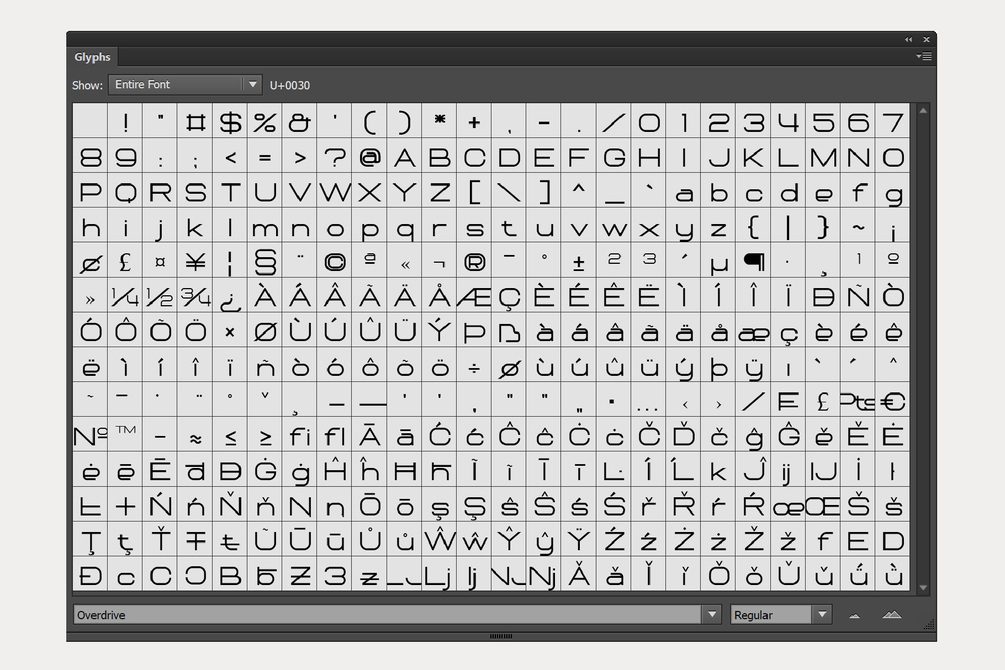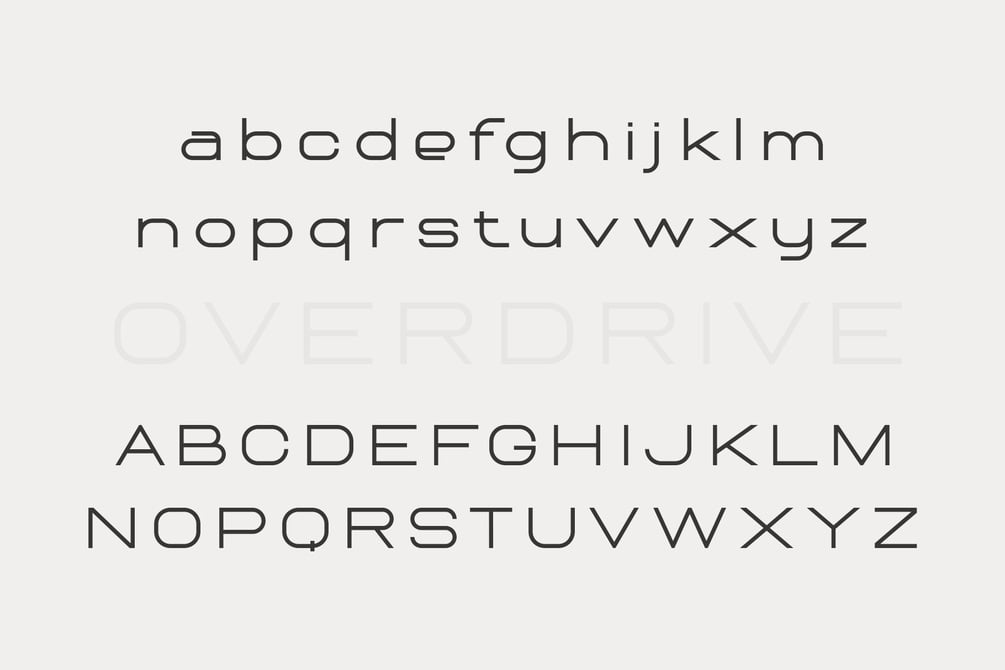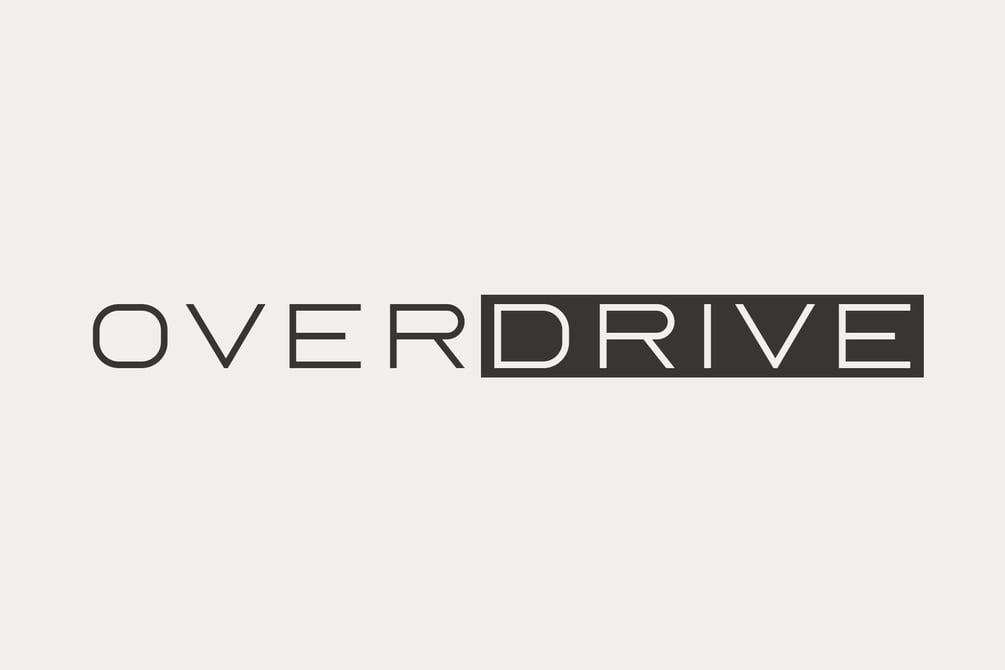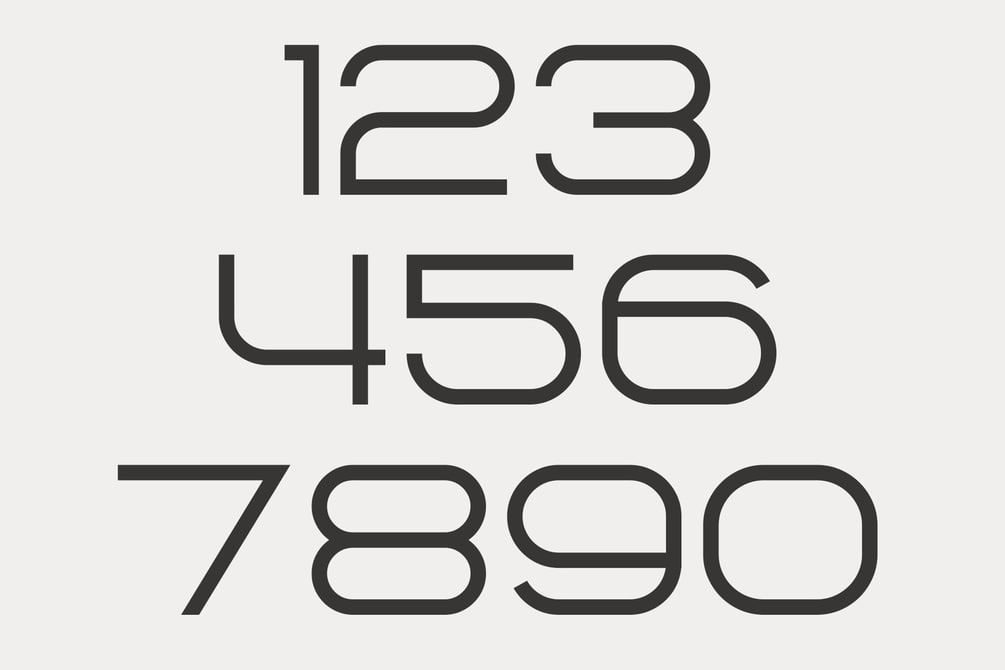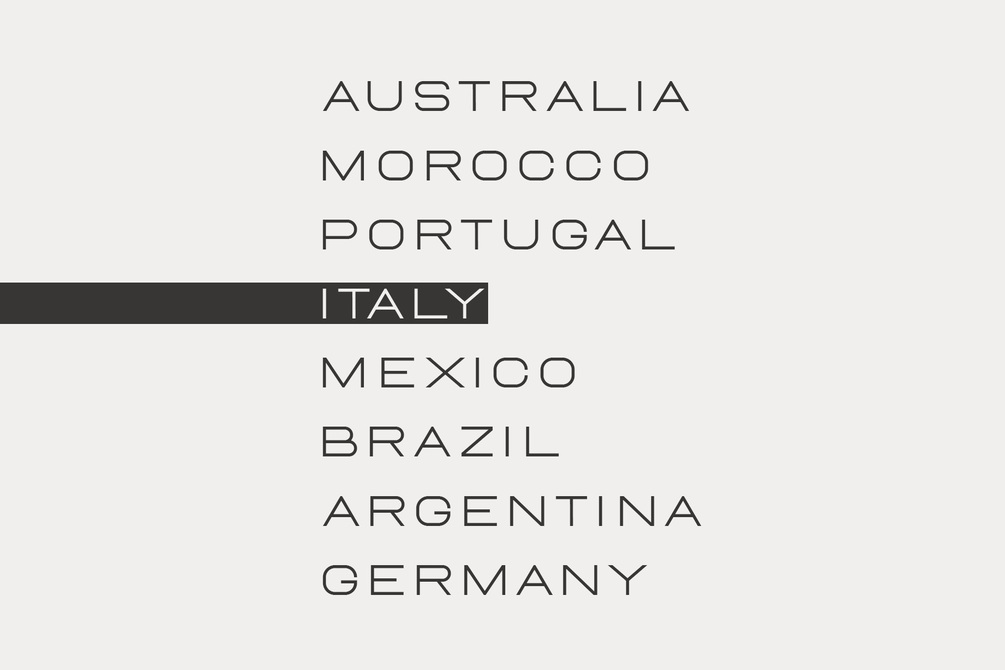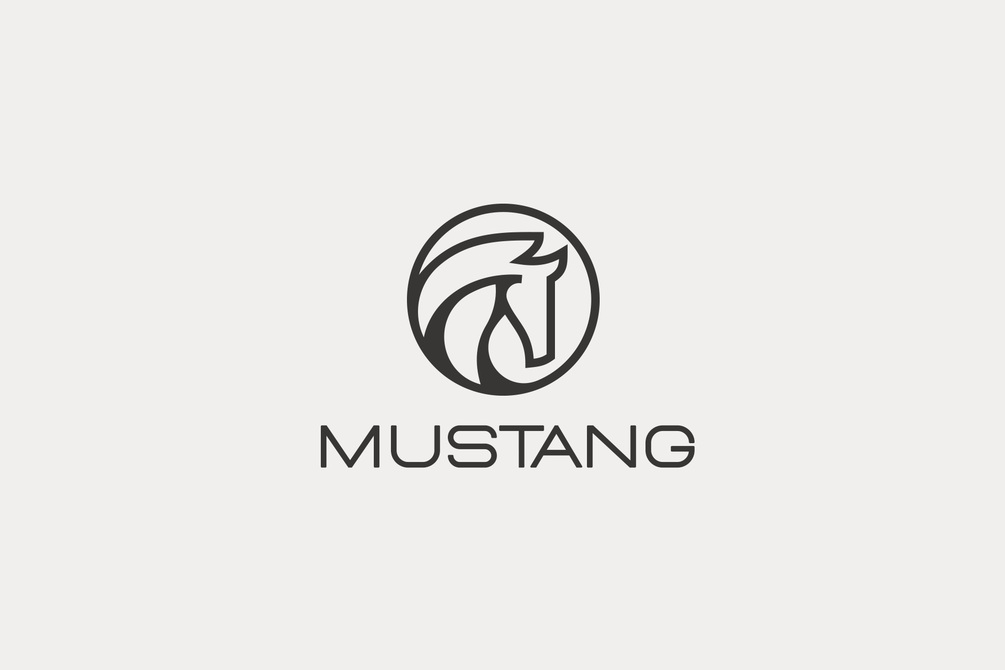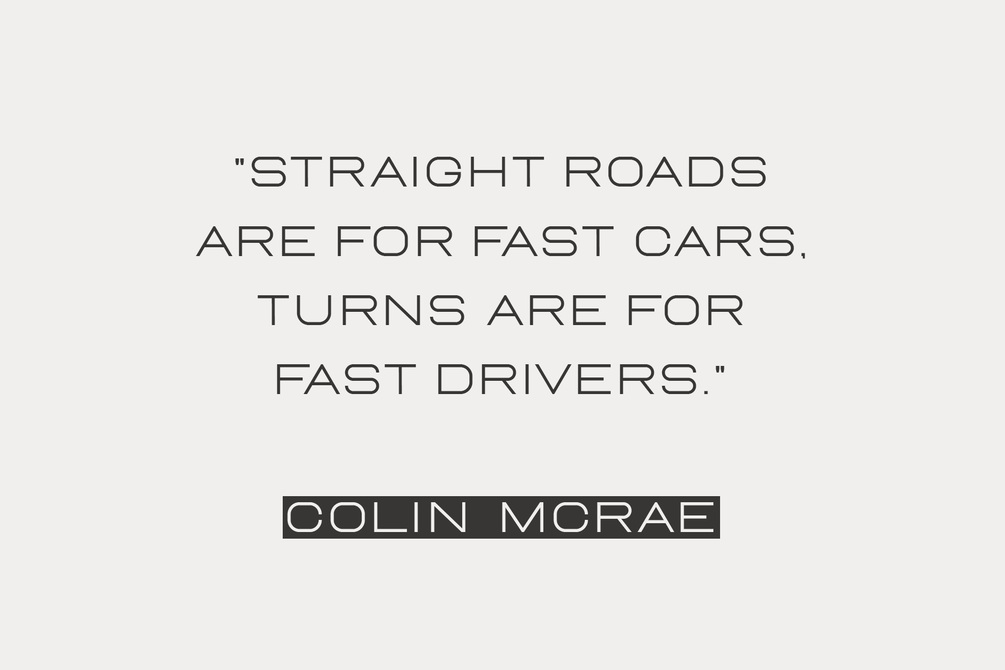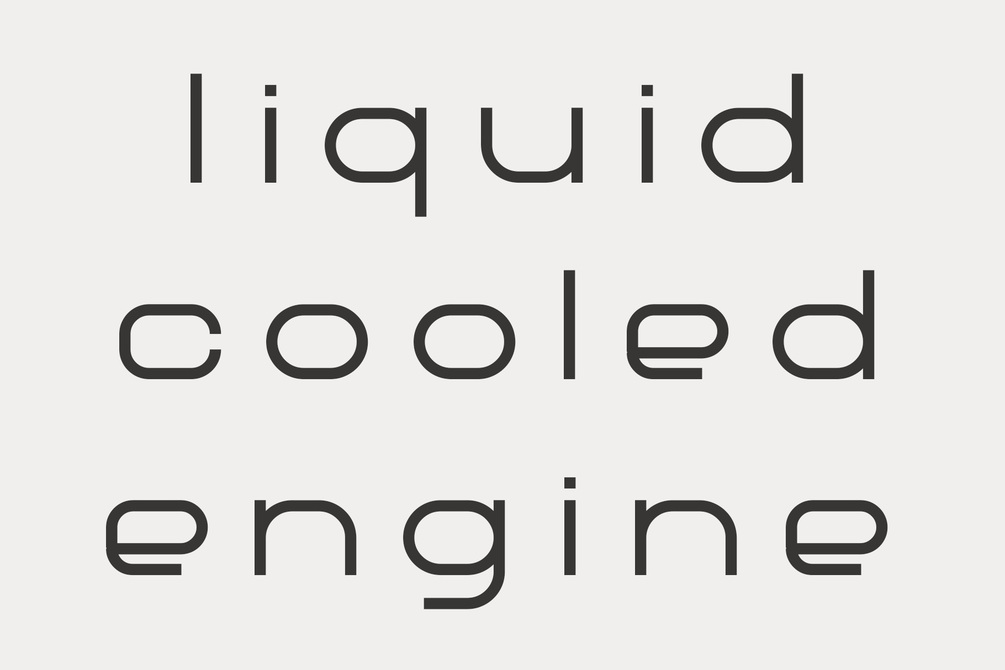
Overdrive - Elite Automotive Font
Overdrive is an elegant typeface inspired by Italian racing and automobile industry. This wide typeface is designed for sheer elegance and stylish experience. Overdrive is perfect for creating stunning logotypes, gripping headlines, memorable presentations, and edgy adverts.
- Uppercase, Lowercase, Numbers, Punctuations
- Accents (Multilingual characters)